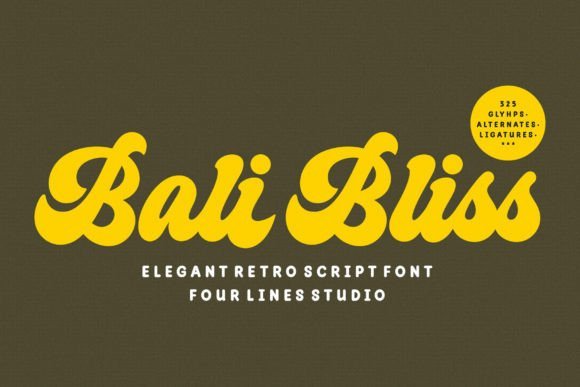
Discover the Timeless Elegance of Bali Bliss Font
There’s something magical about stumbling upon an old, forgotten photograph that instantly transports you back to a simpler time. The faded colors, the vintage aesthetic, and the emotions it evokes all blend together to create an unforgettable experience. It’s this same nostalgic feeling that the Bali Bliss Font aims to capture, bringing a touch of retro charm to your designs.
As a script font, Bali Bliss Font effortlessly exudes an air of sophistication and elegance, perfect for adding a vintage twist to your projects. Whether you’re a seasoned designer or just starting out, this font is an invaluable asset in your toolkit, allowing you to tap into the collective memory and create designs that resonate deeply with your audience.
Bali Bliss Font Key Features
- Unique Characteristics: Hand-drawn design, elegant and sophisticated feel, ideal for luxury and high-end branding
- Font Style: Script, Casual, Elegant, and Modern
Bali Bliss Font Review
I recently had the chance to work with the Bali Bliss Font, and I must say it’s a mixed bag. On the one hand, there are some great things about it.
- ✨ It has a beautiful, laid-back feel that’s perfect for projects that need a relaxed, beachy vibe. I loved using it for a travel brochure I was designing.
- ✨ The font is quite versatile, with a range of weights and styles that make it easy to use in different contexts.
- ✨ The font is well-suited for body text, making it a great choice for longer pieces of content.
On the other hand, there are some limitations to consider.
- ⚠️ The font can feel a bit too casual for some projects, and it may not be the best choice for formal or professional work.
- ⚠️ The font is not as legible at small sizes, so it’s best to use it at larger font sizes or in conjunction with other fonts.
- ⚠️ The font lacks some of the more advanced features that I’ve come to expect from modern fonts, such as variable font capabilities.
Overall, I think the Bali Bliss Font is a solid choice for the right projects. While it may not be perfect, it’s a great option for anyone looking for a laid-back, beachy vibe.
Tip: Use the Bali Bliss font for headings and titles to add a touch of tropical elegance to your design.
Tip: Use the Bali Bliss font for presentations or documents that require a relaxed, tropical vibe.
The Bali Bliss font is perfect for:
- Tropical-themed designs and graphics.
- Wellness and self-care branding.
- Travel and adventure marketing materials.